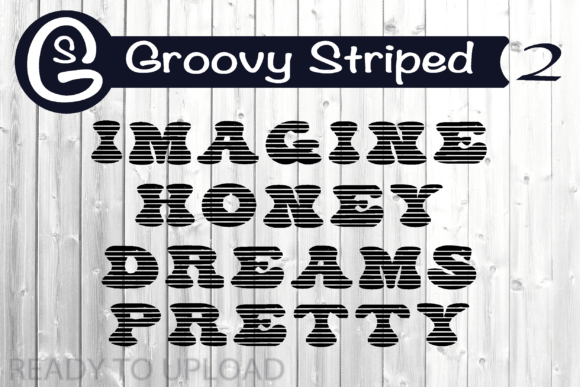
Introducing Groovy Striped Font: Add a Retro Touch to Your Designs
Are you looking for a font that can add a fun, cool, and retro vibe to your designs? Look no further than Groovy Striped Font! This display font is perfect for designers and crafters who want to create unique and eye-catching projects. With its cute and distinctive style, Groovy Striped Font is incredibly versatile and can be used in a wide range of designs.
What Makes Groovy Striped Font So Special?
Groovy Striped Font is a one-of-a-kind display font that features a striped pattern, giving it a groovy and playful feel. Its unique style makes it perfect for adding a retro touch to your designs, from posters and flyers to social media graphics and crafts. The font’s cute and quirky vibe is sure to capture the attention of your audience and leave a lasting impression.
The only limit to using Groovy Striped Font is your imagination! This font can be used in a wide range of designs, including:
- Retro-themed posters and flyers
- Fun and playful social media graphics
- Handmade crafts, such as scrapbooking and card making
- Unique and eye-catching logos and branding materials
- Creative and artistic typography projects
Why Designers and Crafters Love Groovy Striped Font
Designers and crafters love Groovy Striped Font for its versatility and ease of use. The font is:
- Easy to read and understand, even in large and small sizes
- Highly customizable, allowing you to adjust the font size, color, and style to fit your design needs
Tips for Using Groovy Striped Font in Your Designs
Here are some tips for using Groovy Striped Font in your designs:
- Use it as a statement font to draw attention to your design
- Pair it with other fonts to create a unique and interesting typography combination
- Experiment with different colors and patterns to add depth and interest to your design
- Use it to add a playful touch to your design, or to create a fun and retro-themed project
Get Creative with Groovy Striped Font
Key Features of Groovy Striped Font
- Fun and playful striped pattern
- Unique and eye-catching style
- Perfect for retro-themed designs and projects
- Highly versatile and compatible with a wide range of design software and platforms
- Easy to read and understand, even in large and small sizes
Whether you’re a designer, crafter, or simply someone who loves to create, Groovy Striped Font is the perfect choice for adding a touch of fun and personality to your projects. So why wait? Get creative with Groovy Striped Font today and see what amazing designs you can come up with!